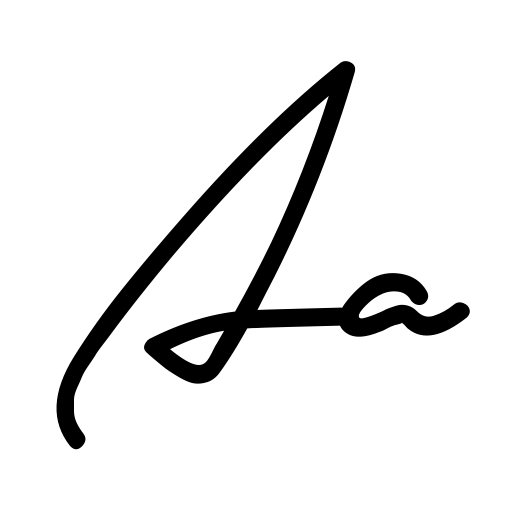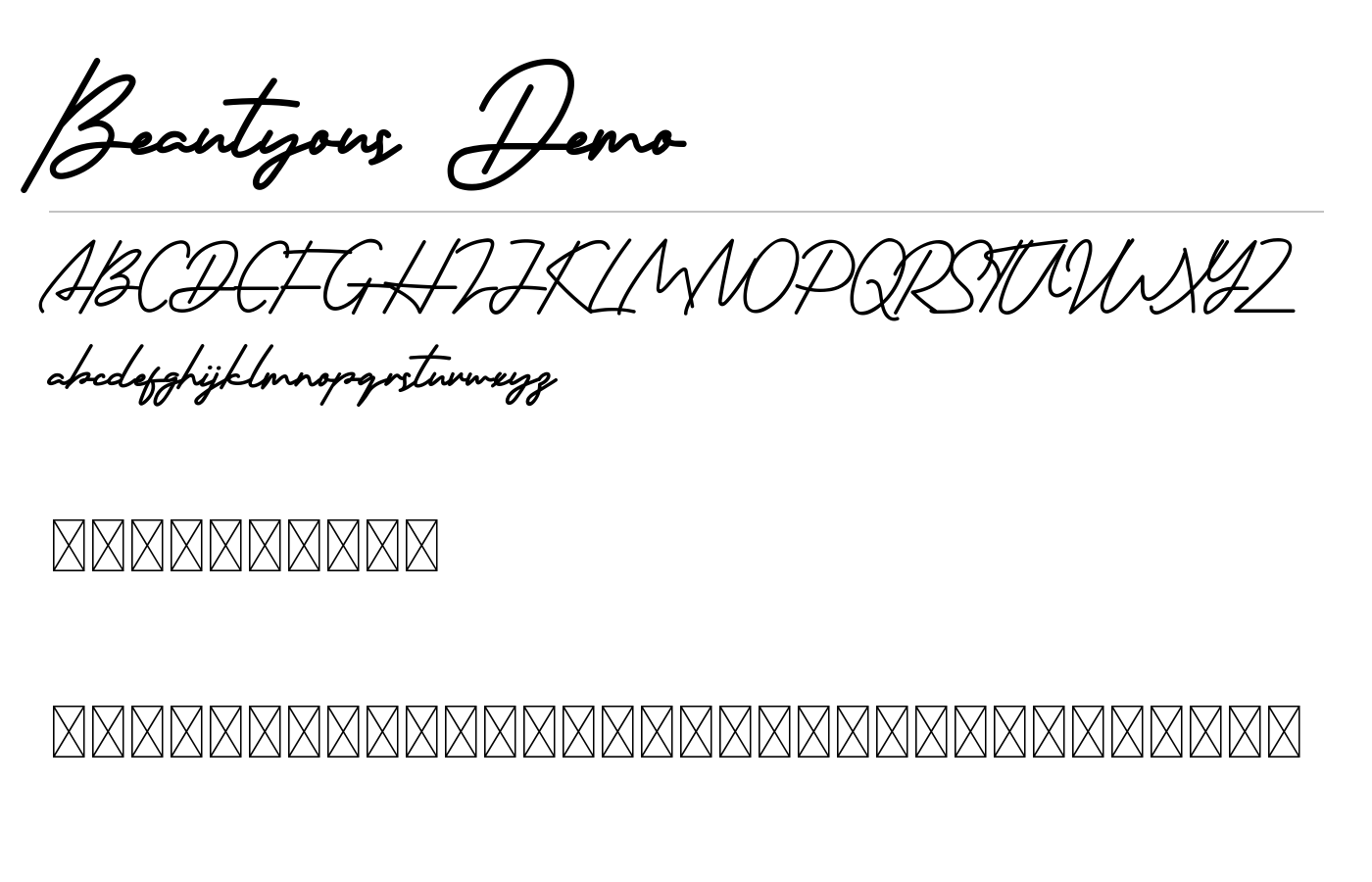
Beautyous Demo is a graceful, handwritten script font characterized by its thin, flowing strokes and elegant, slightly casual style. It features a tall x-height with loosely connected letterforms that convey a modern, personal touch, making it ideal for invitations, branding, and projects needing a stylish yet approachable flair. This font works best for logos, greeting cards, and fashion-related designs that wish to evoke warmth and sophistication.
Beautyous Demo Font
About Beautyous Demo Font